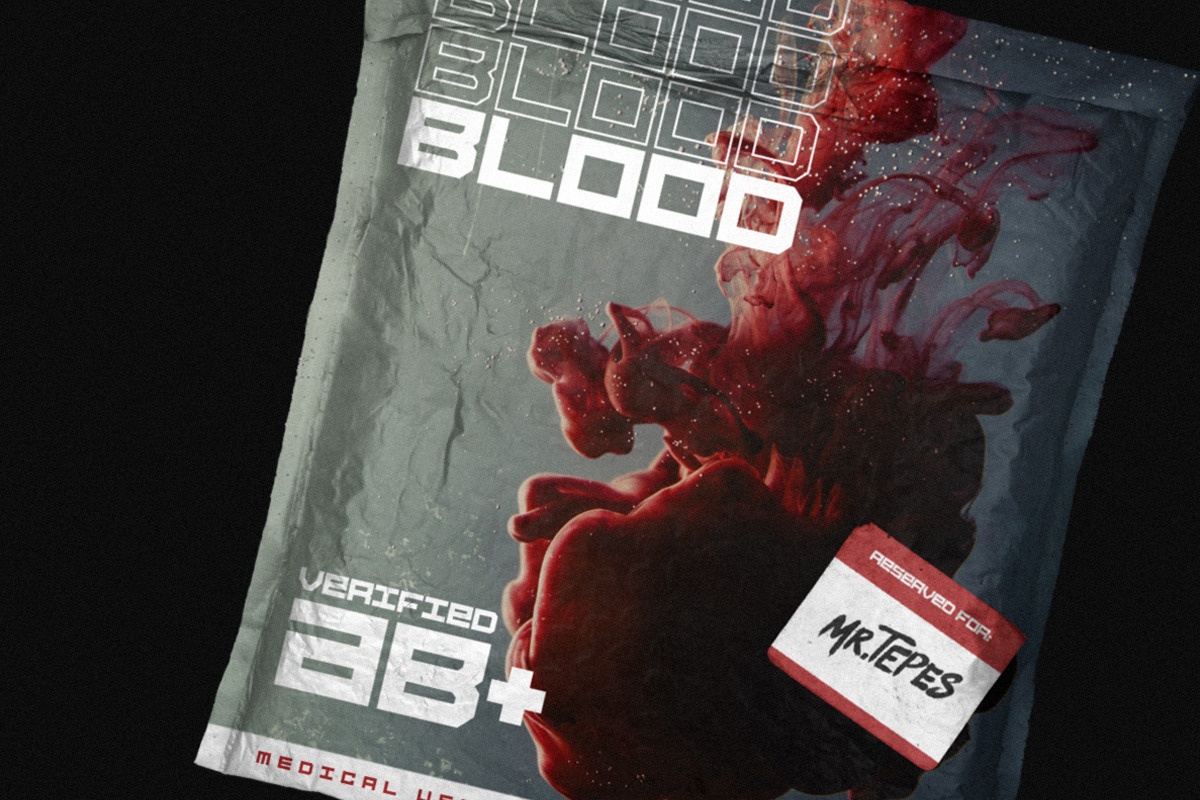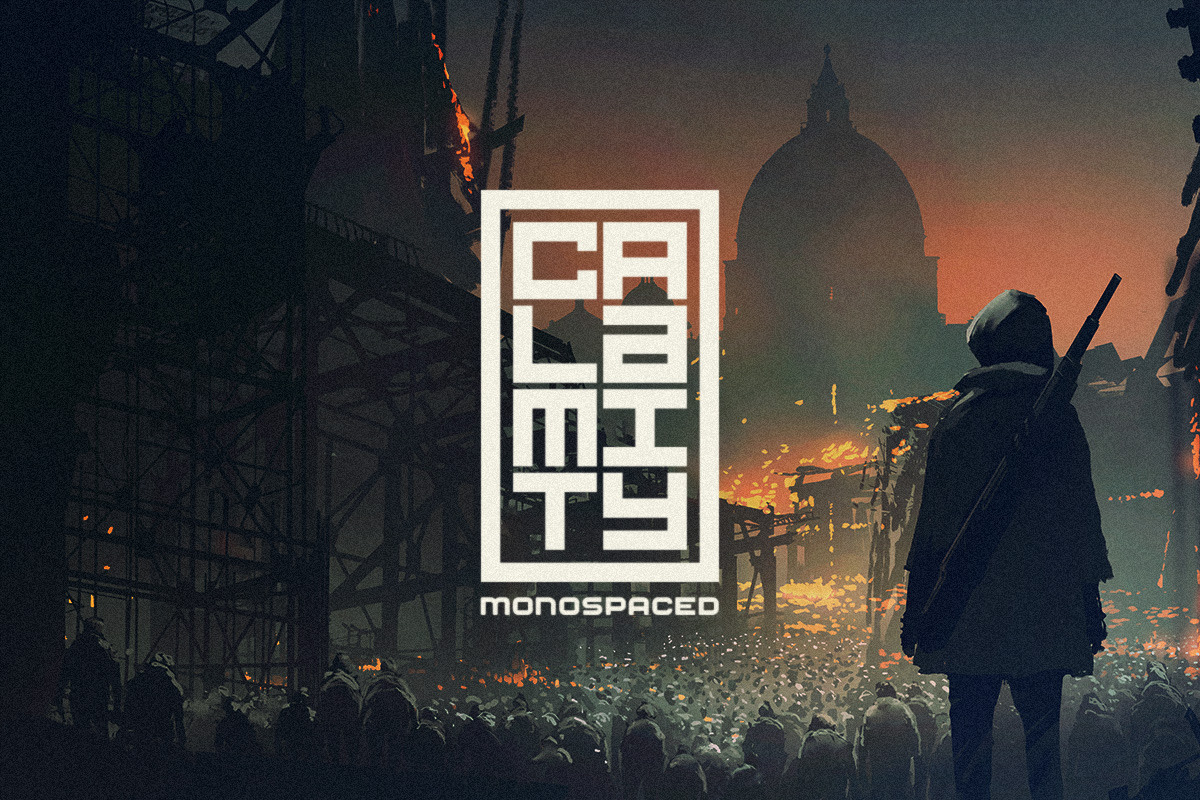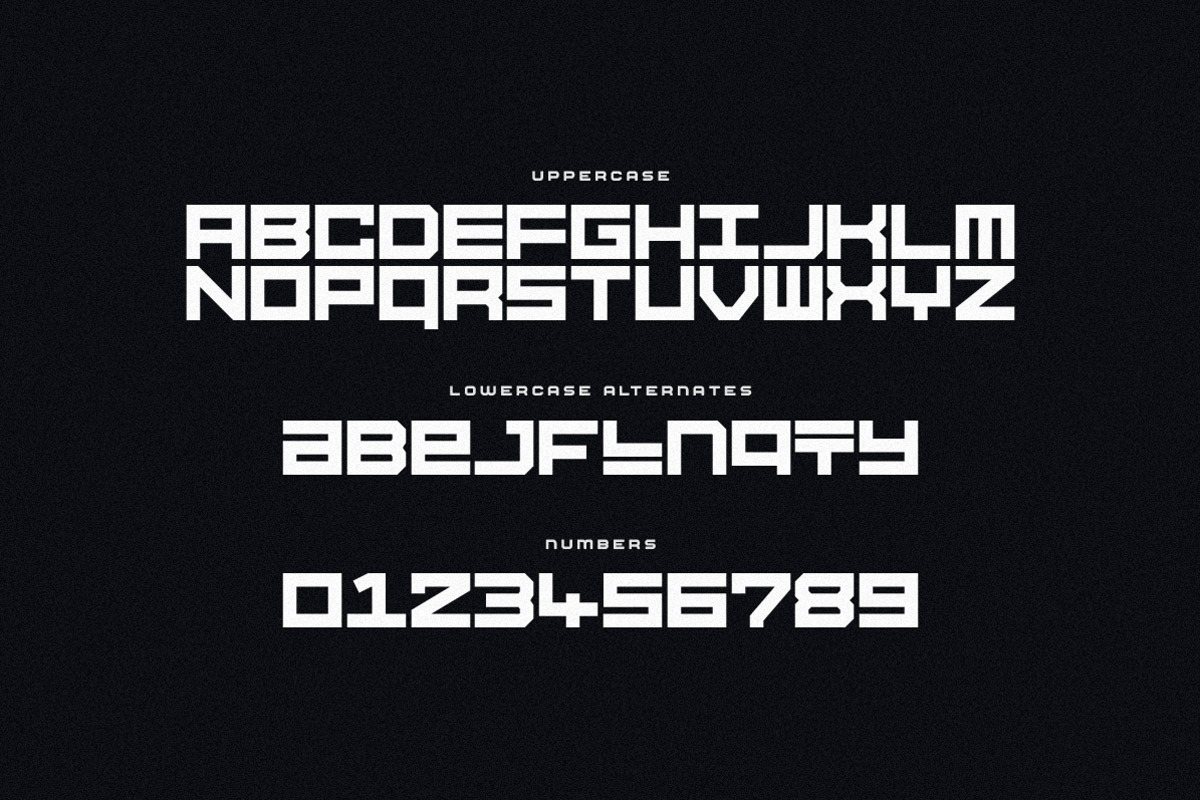
Calamity Typeface
Calamity is a monospaced font family in regular and outlined styles. It works great vertically as well and has a couple of alternate letters which can be toggled via Caps Lock.